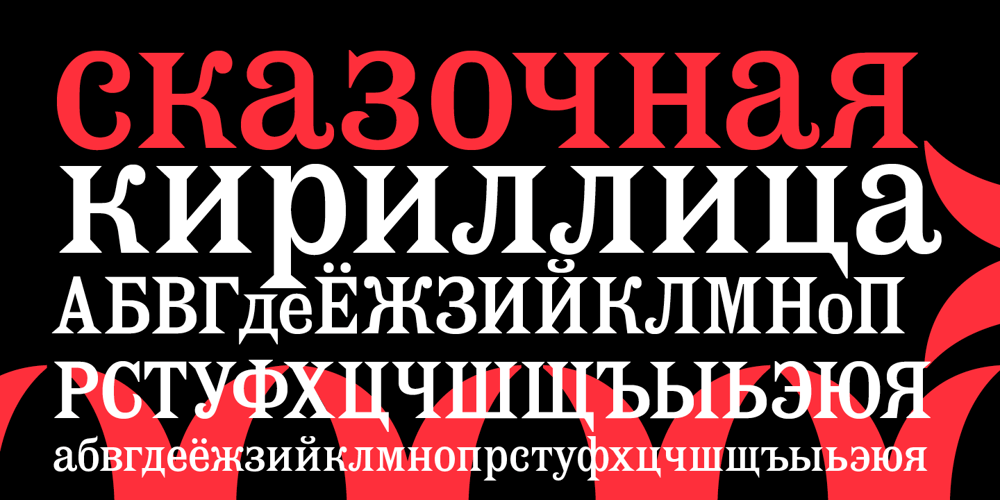
Etienne
Etienne font
Etienne Font Family was designed by Tagir Safayev and published by ParaType. Etienne contains 2 styles and family package options. Designed for ParaType in 2002 by Tagir Safayev. Inspired by the letterforms of Antique No. 8 typeface and other similar fonts of the 19th century (Latin Antique, Wide Latin, Etienne Condensed, Wide Renaissance). A face of so-called Latin type has stout triangular serifs and rather unusual curls on several letters in the lower case. Nevertheless it is eminently suitable for a wide variety of settings in advertising and display typography.